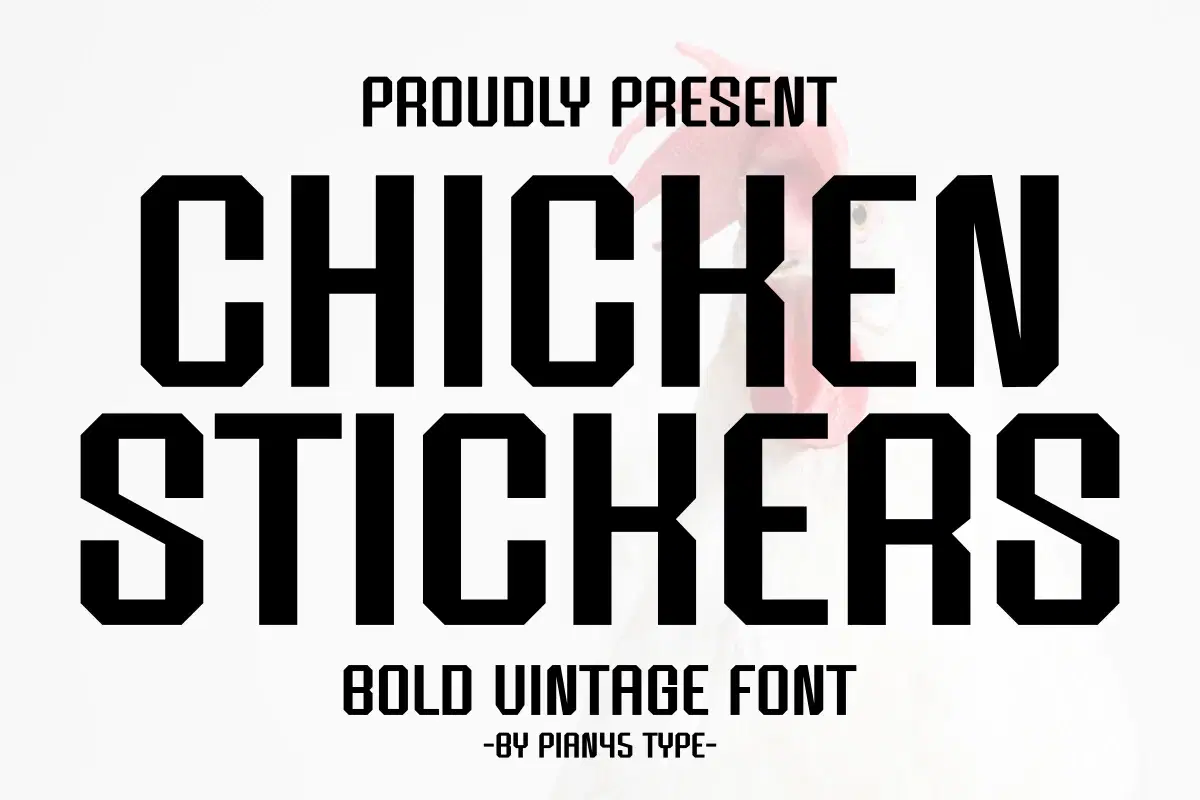
Chicken Stickers - Bold Vintage Font
Chicken Stickers is a bold and elegant vintage sans serif typeface that is both unique and captivating. Combining a modern and fun vibe, this font brings a charming and playful touch to your creations. Perfect for quotes, posters, backgrounds, movie titles, sportswear, apparel, mugs, tote bags, pillows, tumblers and wall art designs.